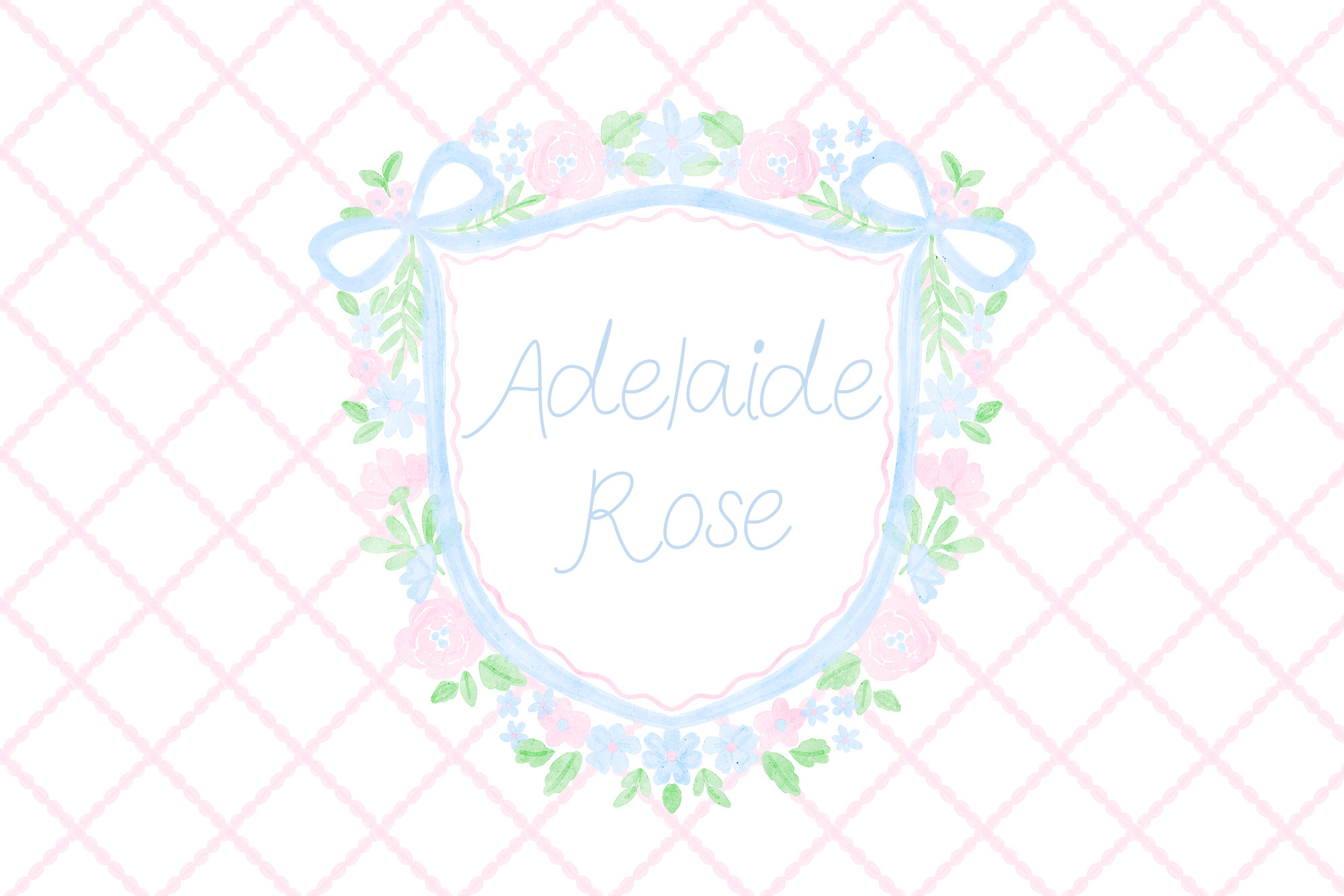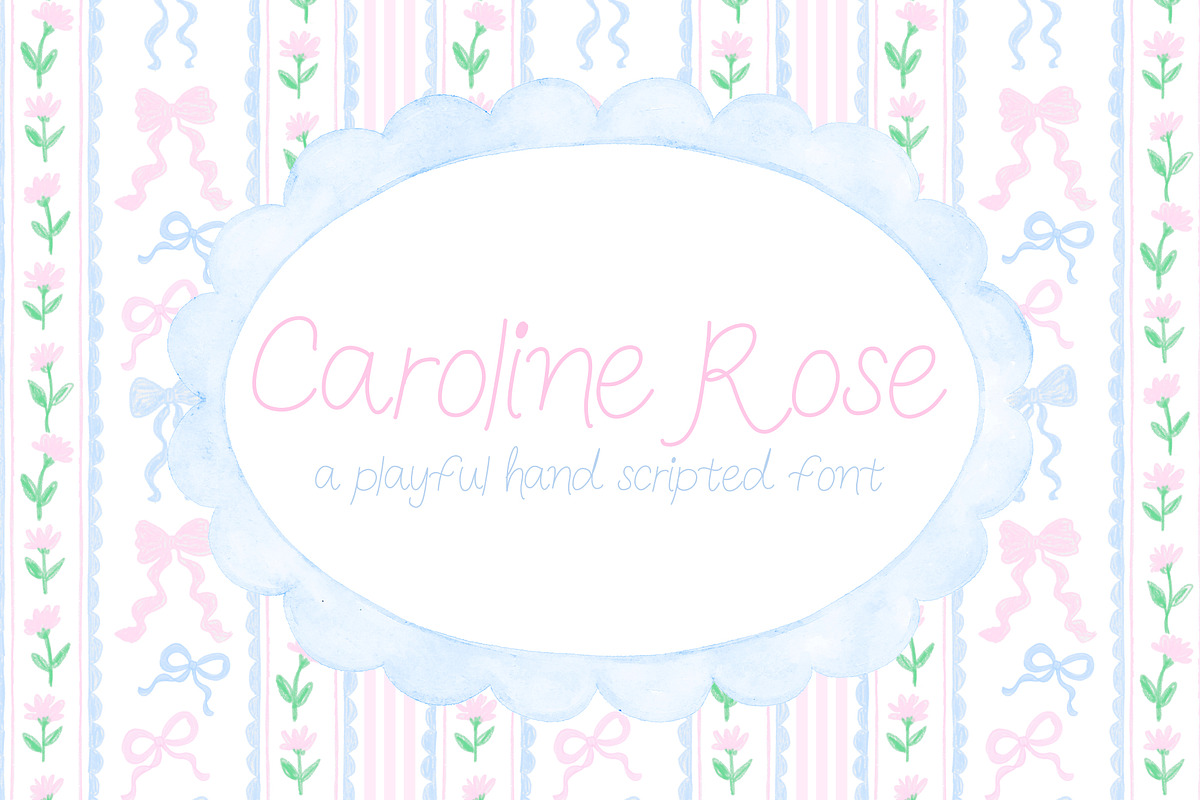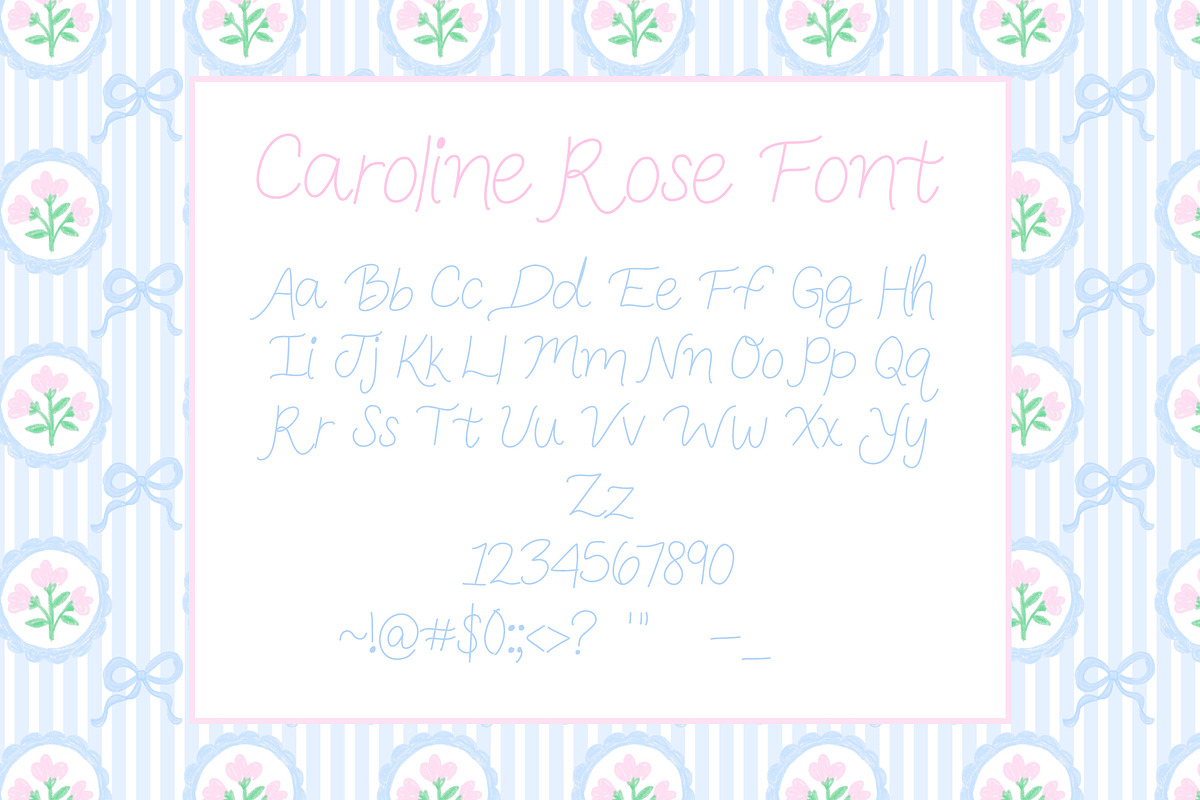
Caroline Rose Script Font
Introducing a playful, southern preppy hand lettered font. Perfect for your next invitation, first birthday sign or product design!